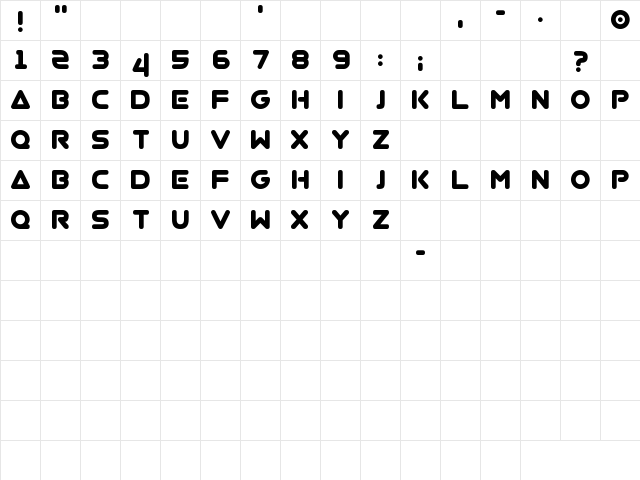
Virgo 01 Regular
Design Context for Virgo 01 Typeface
Virgo 01 takes a measured approach to typography — its balanced proportions and neutral character make it a reliable workhorse for both digital and print work.